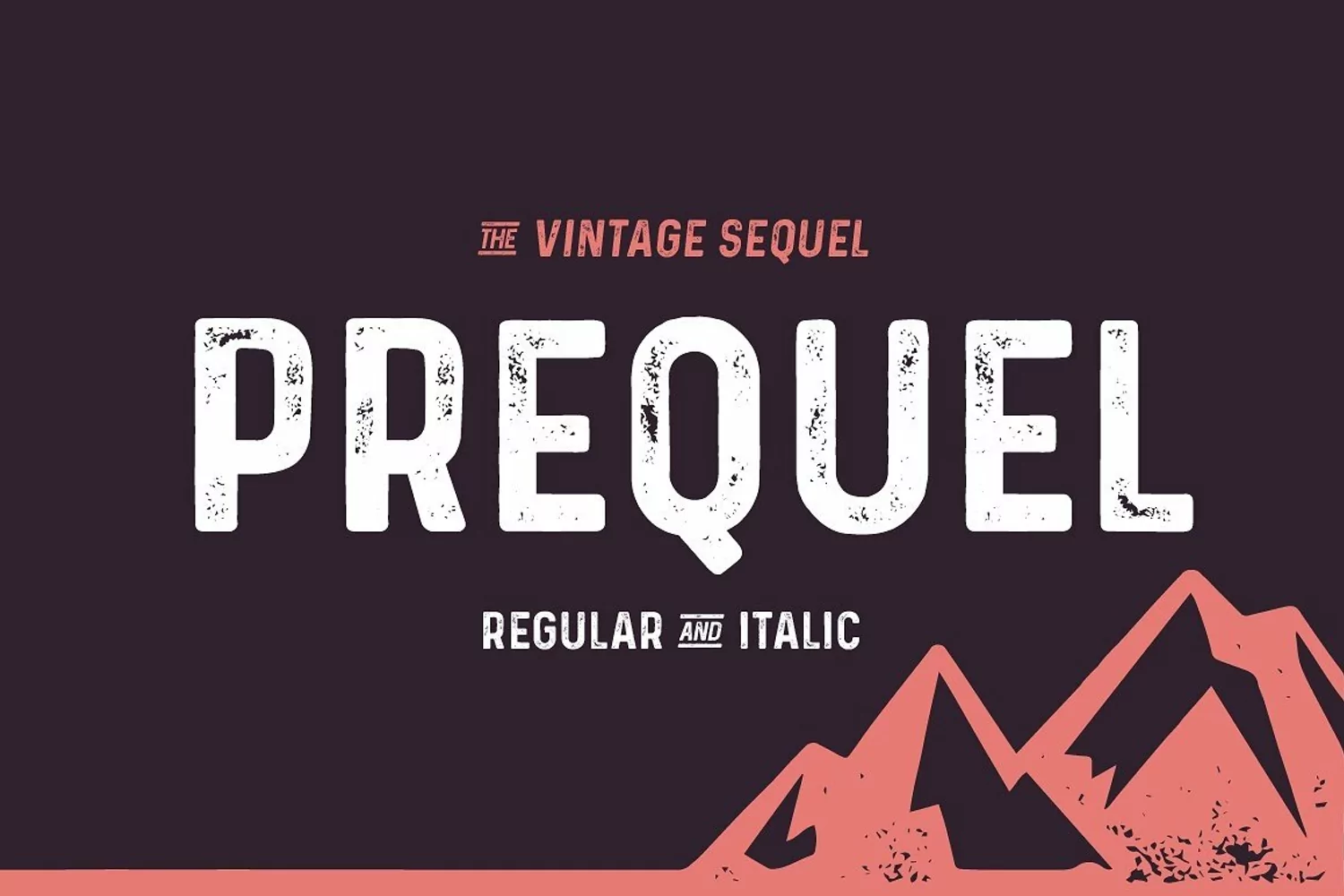
Prequel - Rough
One year ago I created my very first font, Sequel - which still means a lot to me because this font opened my world to type design. I always wanted to create a true rough, stamped style of this font.
Now I finally did it but with all my experience I got in the past year I also had the wish to change a few things.
So I thought of recycling this into a completely new, revised font - with many completely new designed letters, a lower x-height and better kerning.
You'll get the full set of 330 glyphs including numbers, many symbols and language support for many countries! And of course you'll also get an awesome italic!
You loved it with Sequel, so I took over the eight ligatures and made them grung-y, too.